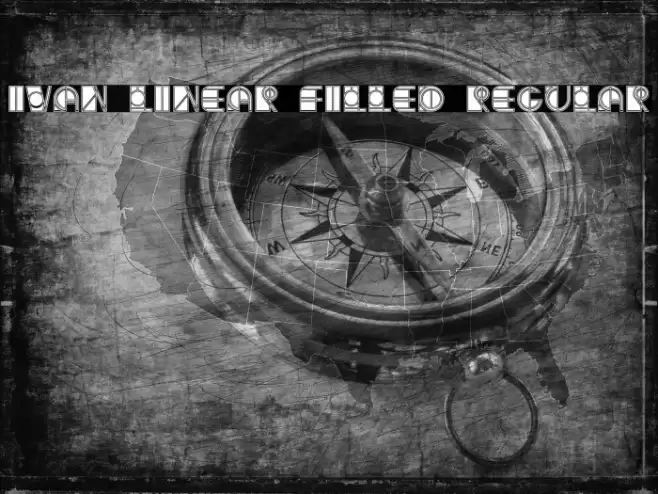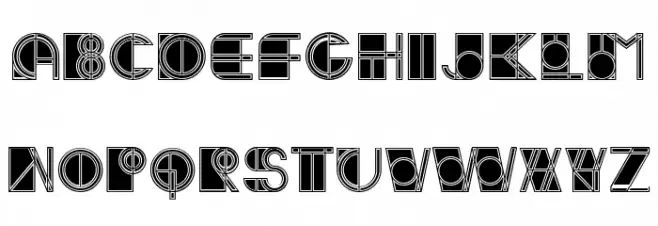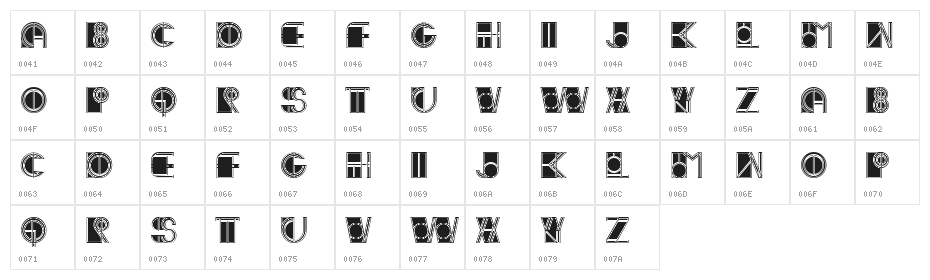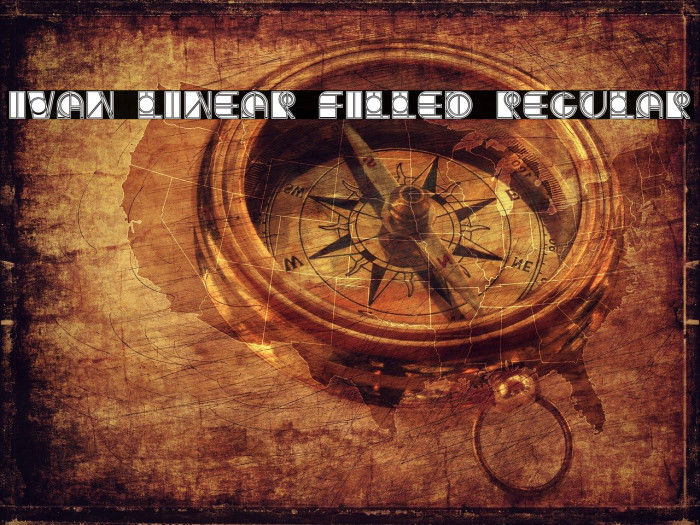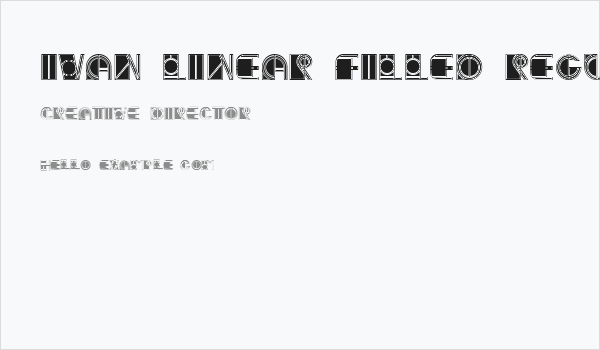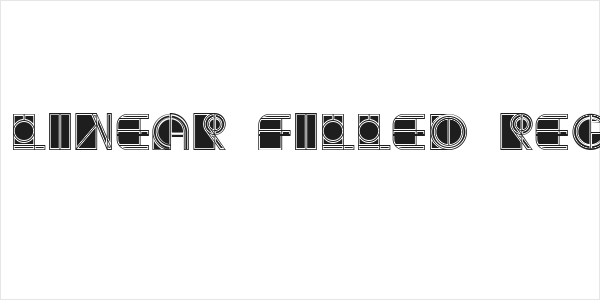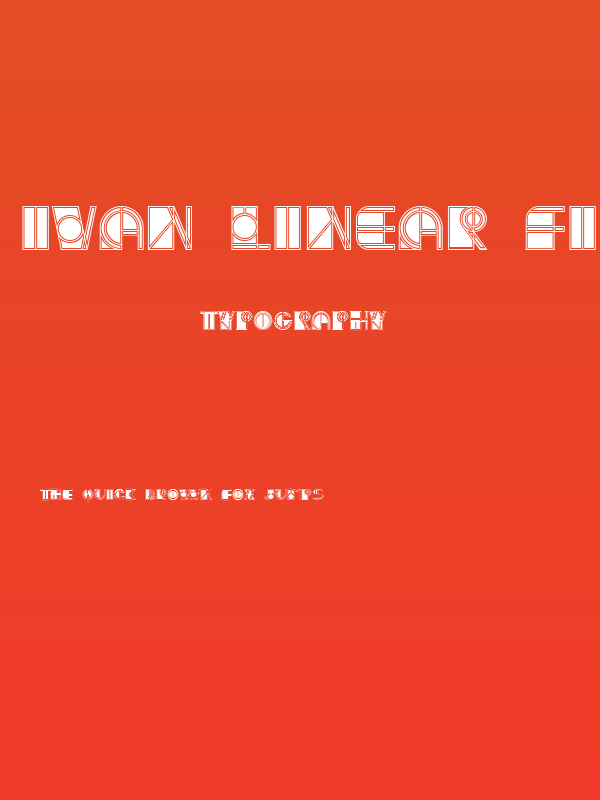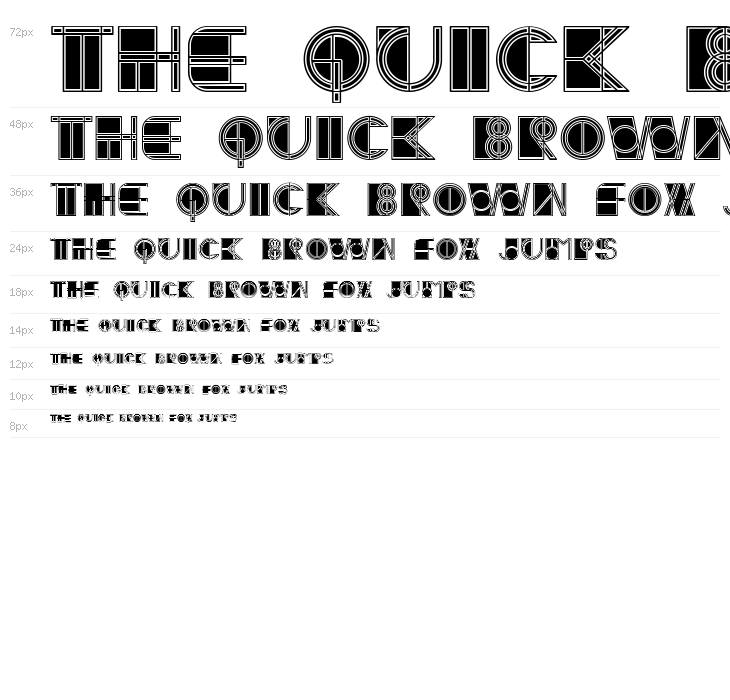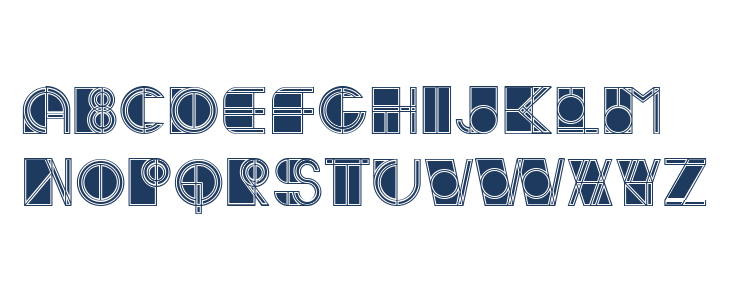
Ivan Linear Filled Regular Font
Ivan Linear Filled Regular Description
This font features a geometric and linear design with a filled style, creating a bold and striking appearance. The characters are constructed with a combination of straight lines and curves, forming a cohesive and modern aesthetic. Each letter is distinct, with unique patterns and shapes that contribute to the overall decorative quality. The font's design is reminiscent of art deco influences, with an emphasis on symmetry and clean lines. It is well-suited for projects that require a strong visual impact, such as branding, posters, and headlines. The filled nature of the font adds to its boldness, making it stand out in various design contexts.
A geometric, filled font with a bold, art deco-inspired design from Uncategorized fonts.
- Proposed Projects: Ideal for branding, posters, headlines, and any project requiring a strong visual impact.
- Overall Style: Modern, Art Deco